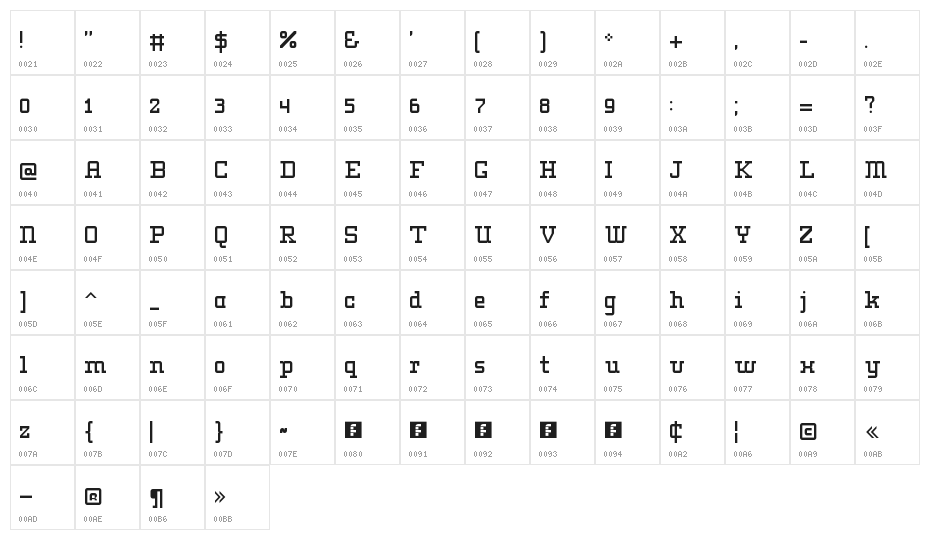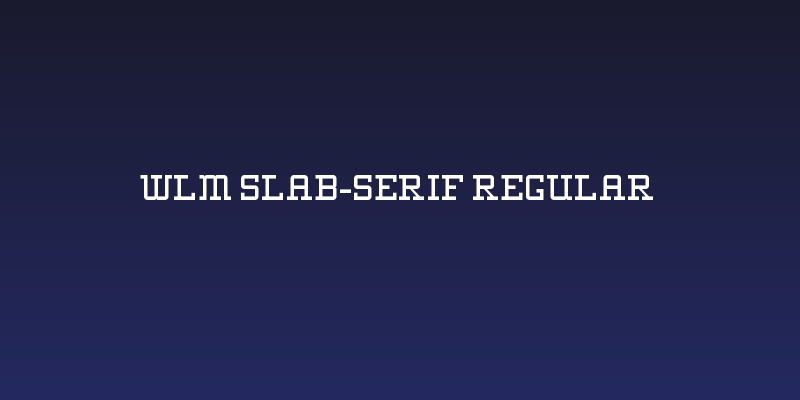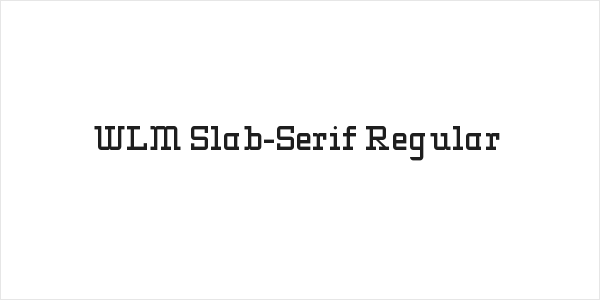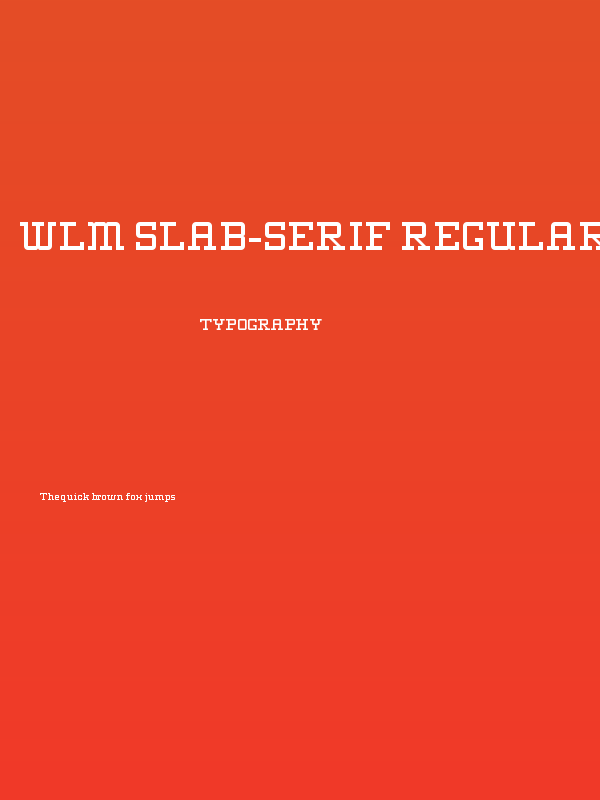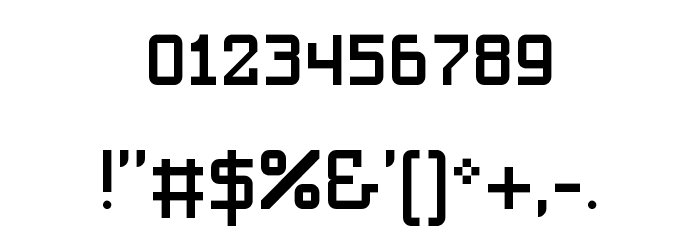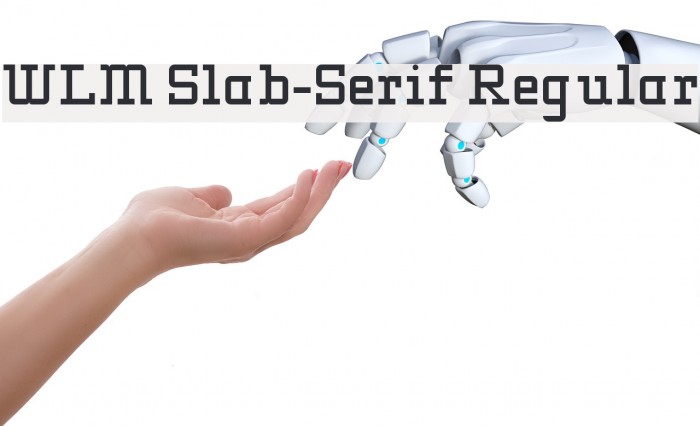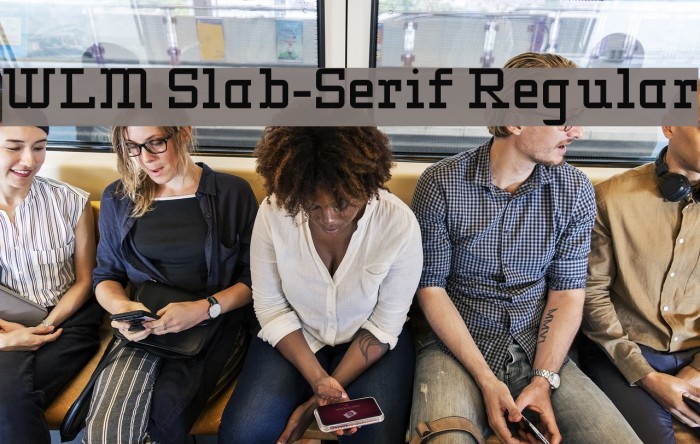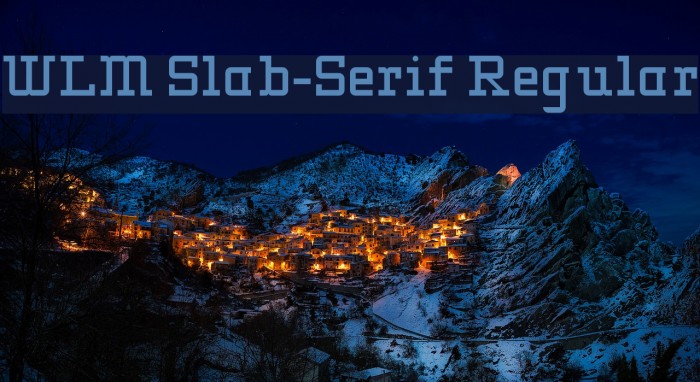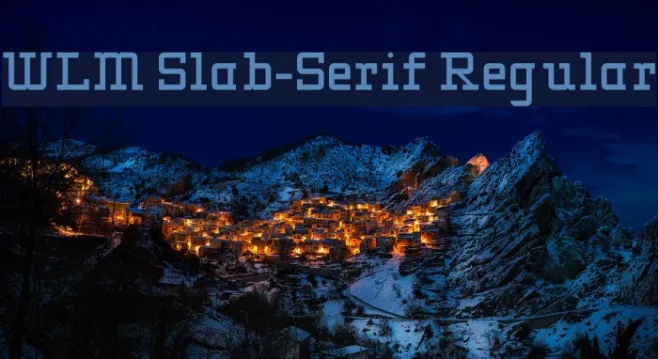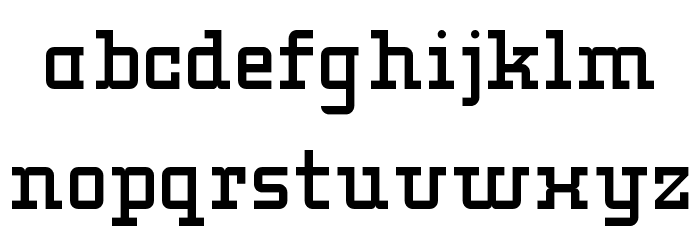
WLM Slab-Serif Regular Font
WLM Slab-Serif Regular Description
This font features a robust and structured design with thick, block-like serifs that give it a strong presence. The characters are evenly spaced, providing a clean and organized appearance. The uppercase letters are bold and commanding, while the lowercase letters maintain a consistent weight, offering a harmonious balance. The numerals are clear and legible, making them suitable for various applications. Special characters are distinct and well-defined, ensuring readability across different contexts. Overall, this font exudes a classic yet modern feel, making it versatile for both traditional and contemporary designs.
| Proposed Projects | Ideal for headlines, posters, branding materials, and any design requiring a bold statement. |